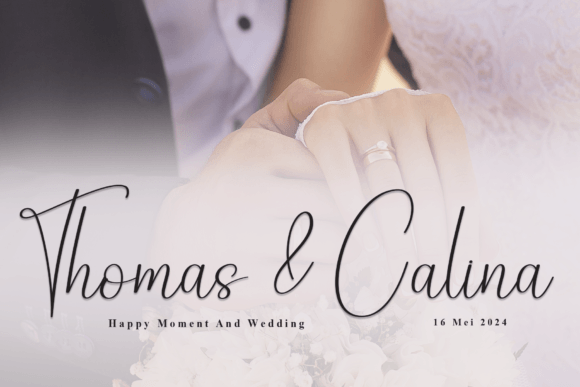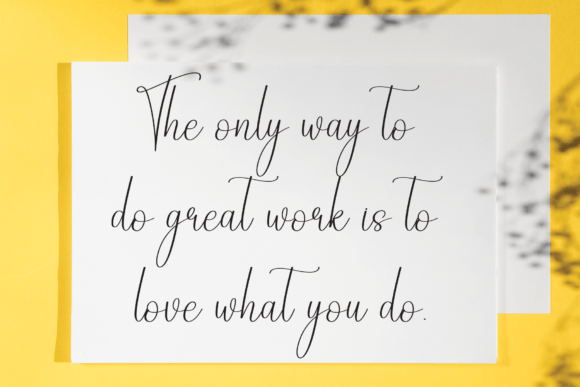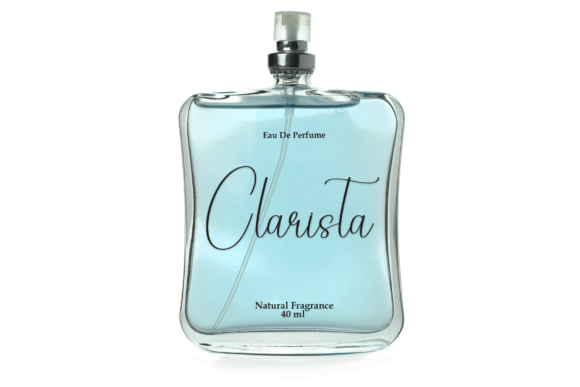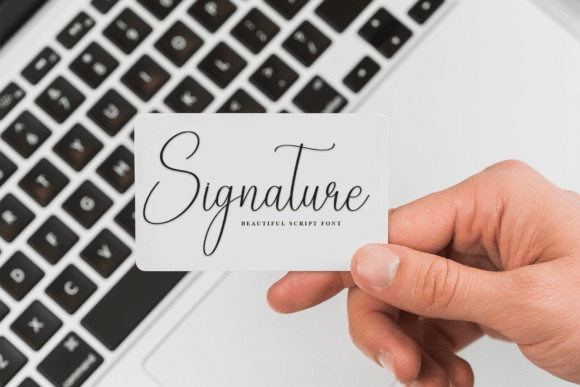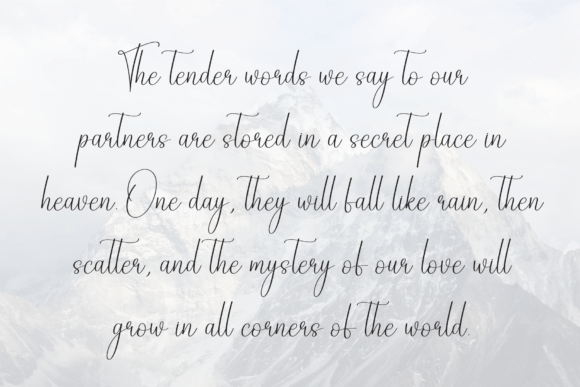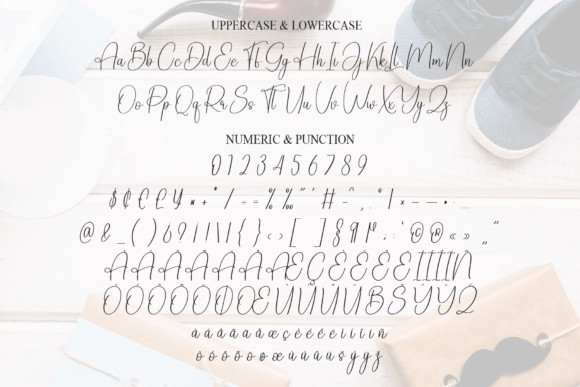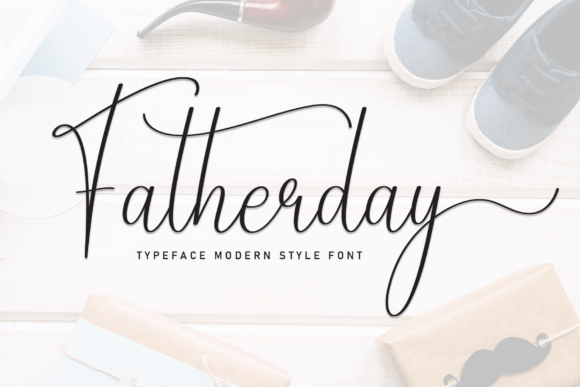
Introducing Fatherday Font: Elevate Your Designs with Elegance and Personality
Are you looking for a font that exudes sophistication, elegance, and warmth? Look no further than Fatherday Font, a modern and charming handwritten font that is perfect for upscale invitations, personal branding, and chic editorial designs. With its graceful, flowing strokes and sophisticated character, Fatherday Font is sure to elevate your projects and make them stand out.
What Makes Fatherday Font Special?
Fatherday Font is a unique and stylish font that is designed to add a touch of elegance and personality to your designs. Its flowing strokes and sophisticated character make it perfect for a variety of applications, from wedding invitations and personal branding to editorial designs and more. Whether you’re a designer, crafty DIY enthusiast, or simply someone who appreciates beautiful typography, Fatherday Font is a great addition to your font collection.
Key Features of Fatherday Font
- Modern and Charming: Fatherday Font has a modern and charming aesthetic that is sure to impress. Its unique character and flowing strokes make it perfect for designs that require a touch of elegance and sophistication.
- Elegant and Refined: With its sophisticated character and refined strokes, Fatherday Font is perfect for upscale designs that require a high level of elegance and poise.
- Handwritten with Love: Fatherday Font is a handwritten font that is crafted with love and care. Its unique character and imperfections make it feel personal and authentic.
- Versatile: Fatherday Font is a versatile font that can be used for a variety of applications, from invitations and branding to editorial designs and more.
Fatherday Font is perfect for designers and crafters who are looking for a unique and stylish font to add to their collection. Whether you’re working on a client project or a personal DIY project, Fatherday Font is sure to impress. Its elegant and refined character makes it perfect for:
- Wedding Invitations: Add a touch of elegance and sophistication to your wedding invitations with Fatherday Font.
- Personal Branding: Use Fatherday Font to create a unique and stylish brand identity that reflects your personality and style.
- Editorial Designs: Add a touch of elegance and refinement to your editorial designs with Fatherday Font.
- DIY Projects: Use Fatherday Font to add a personal touch to your DIY projects, from scrapbooking to card making.
How to Use Fatherday Font
- Experiment with Different Sizes: Fatherday Font looks great in a variety of sizes, from small and delicate to large and bold.
- Play with Colors: Fatherday Font looks great in a variety of colors, from classic black and white to bold and bright colors.
- Mix and Match: Don’t be afraid to mix and match Fatherday Font with other fonts to create a unique and stylish look.
Fatherday Font is a modern and charming handwritten font that exudes elegance and personality. Its flowing strokes and sophisticated character make it perfect for upscale invitations, personal branding, and chic editorial designs. Whether you’re a designer, crafty DIY enthusiast, or simply someone who appreciates beautiful typography, Fatherday Font is a great addition to your font collection. So why wait? Download Fatherday Font today and elevate your designs with elegance and personality.